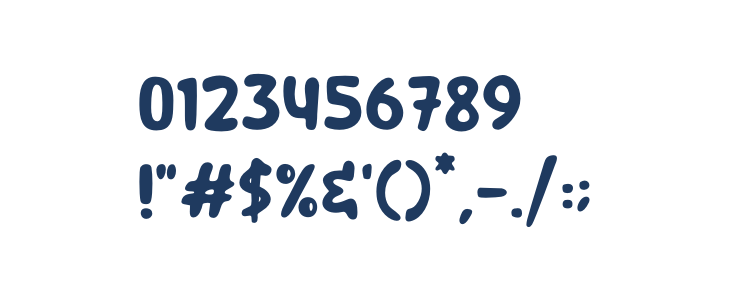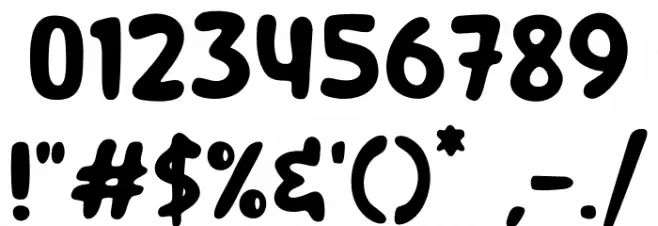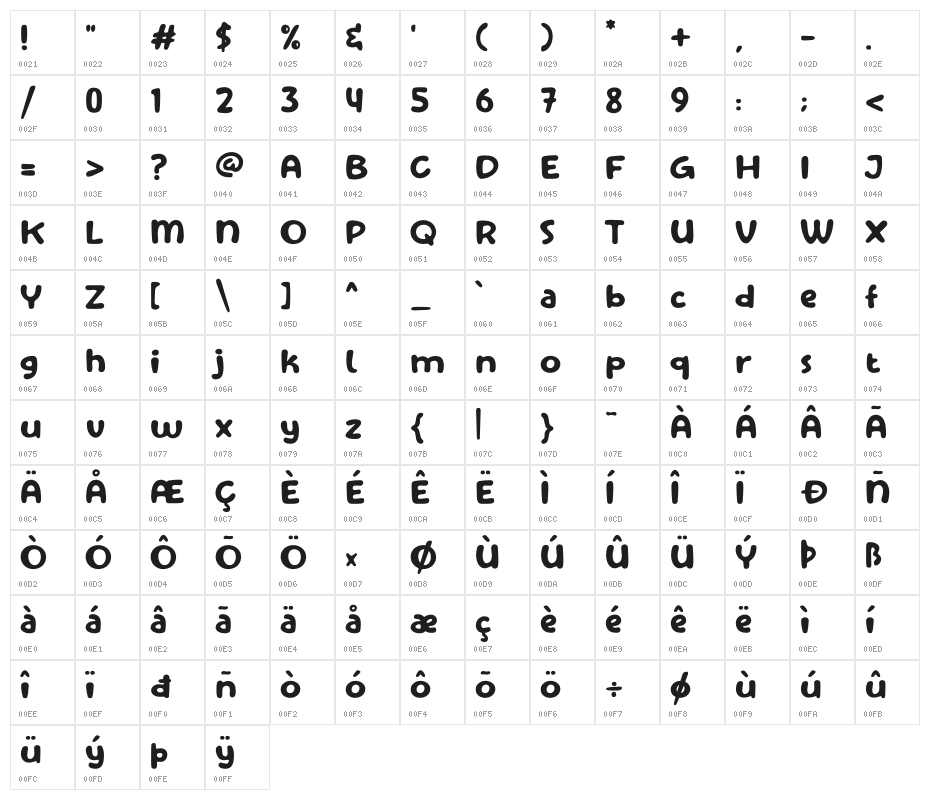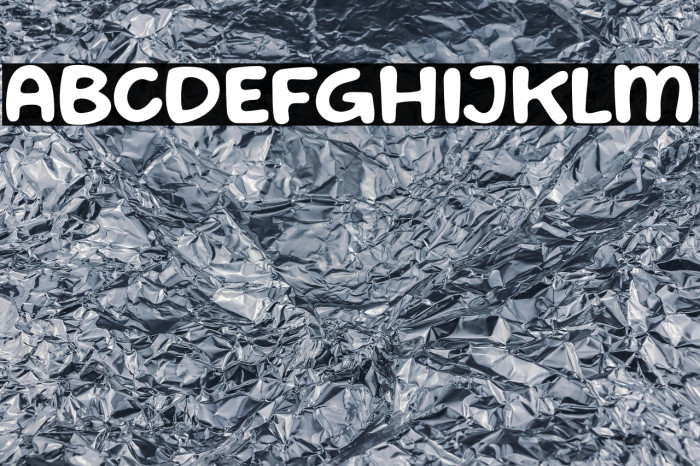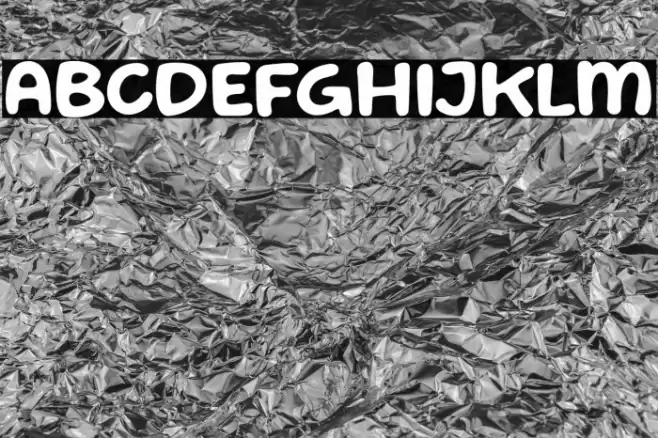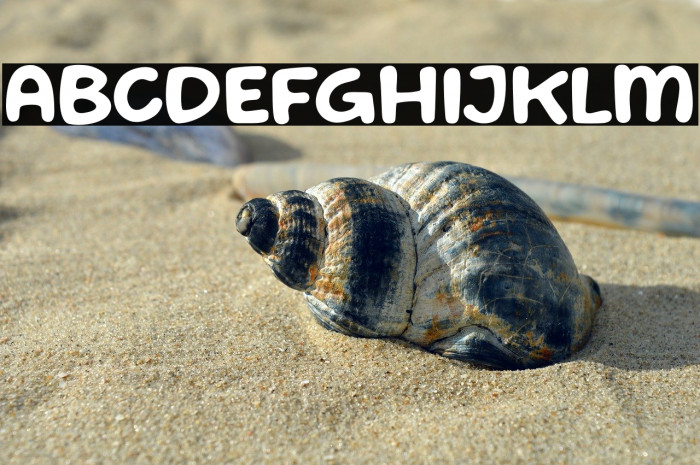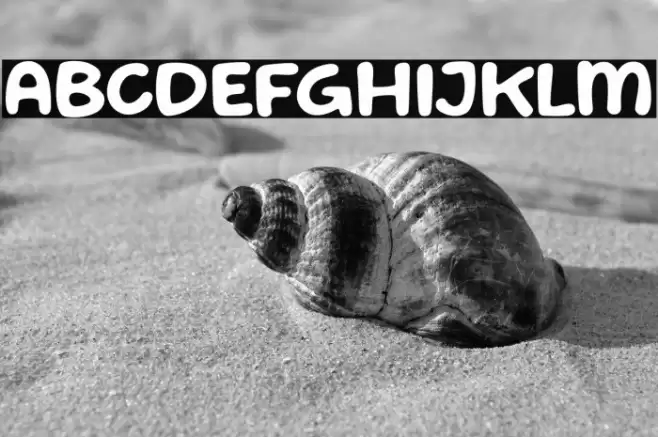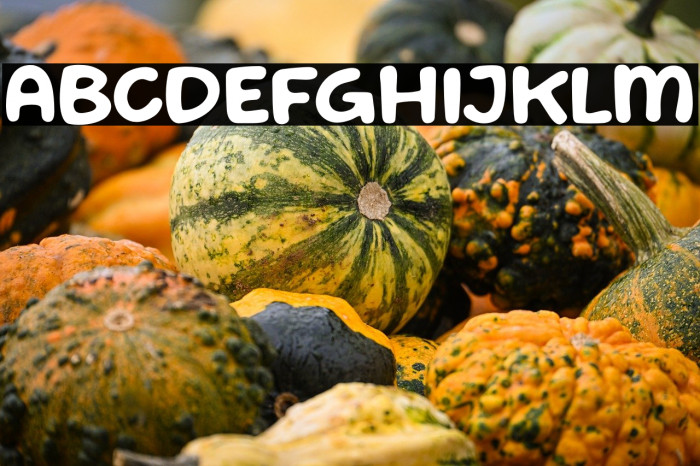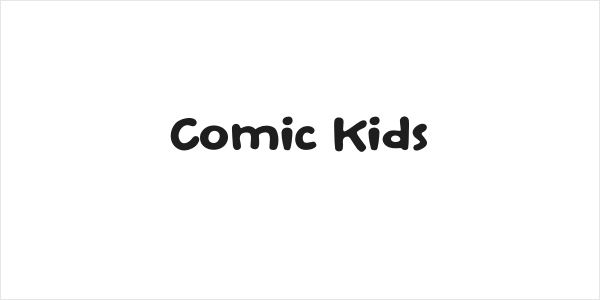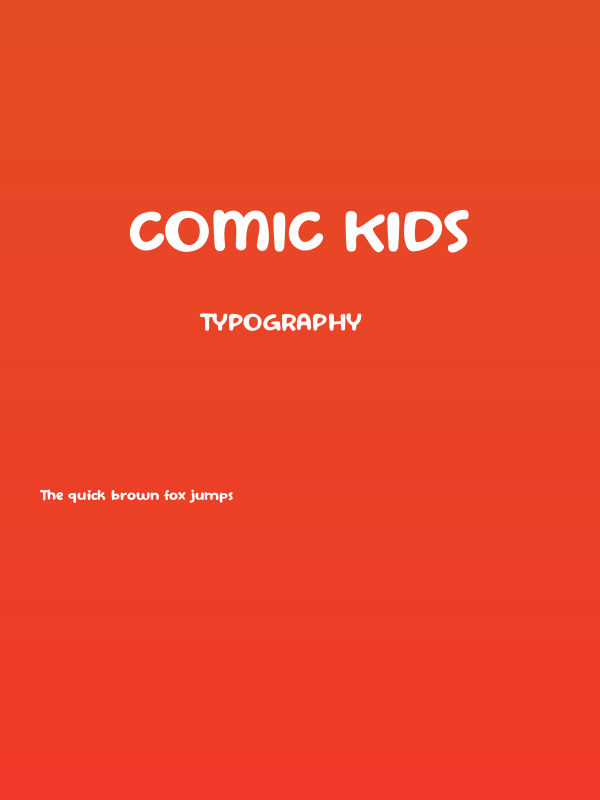
Comic Kids Font
Comic Kids Description
This playful and whimsical font features rounded, bubbly characters that exude a sense of fun and creativity. The letters are bold and slightly irregular, giving them a hand-drawn appearance that is both approachable and friendly. The font maintains a consistent thickness throughout, with smooth curves and a casual style that makes it perfect for informal and child-friendly designs. Its unique personality is conveyed through the slightly exaggerated shapes and the overall cheerful aesthetic, making it ideal for projects that aim to capture a youthful and energetic vibe.
| Proposed Projects | Ideal for children's books, comic strips, playful branding, and educational materials. |